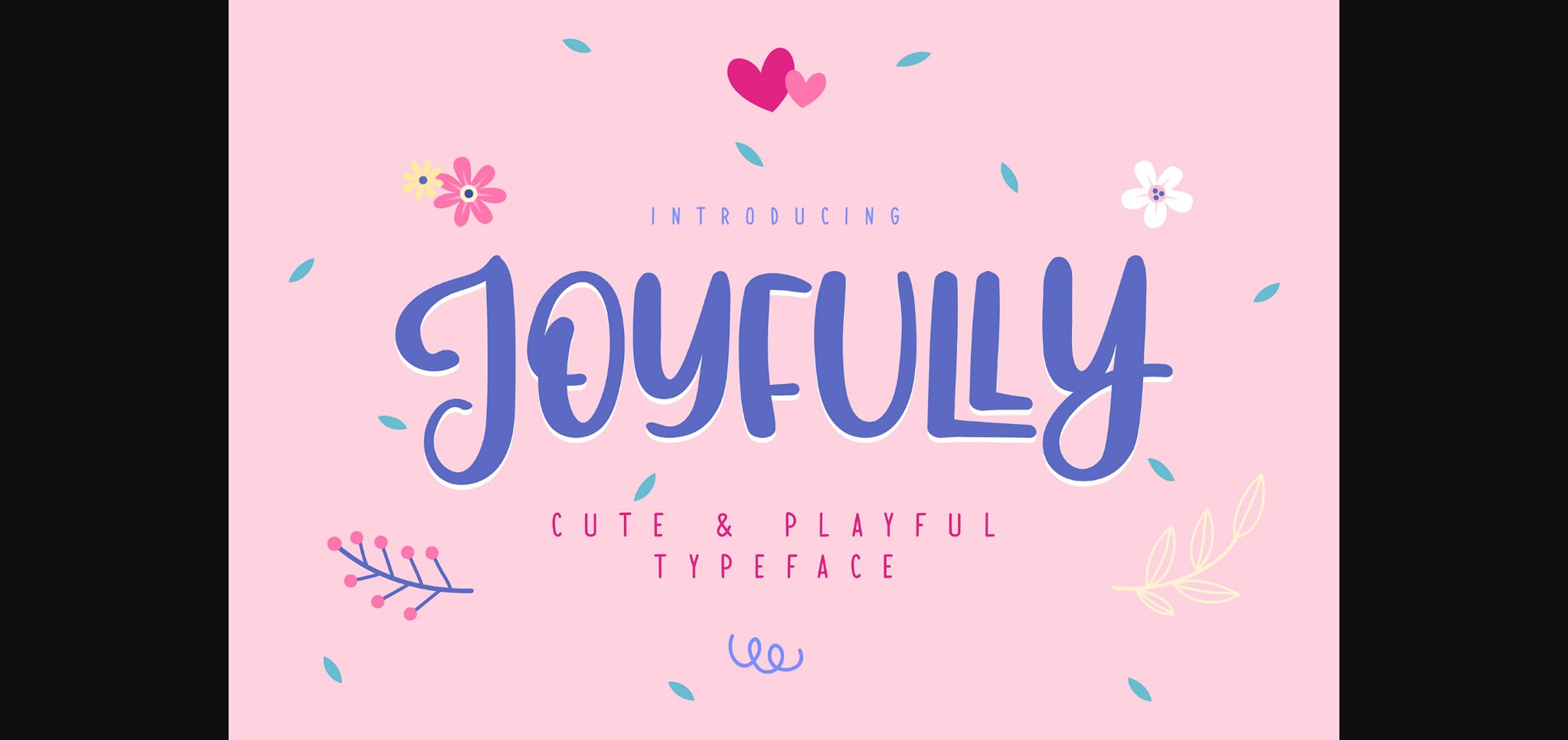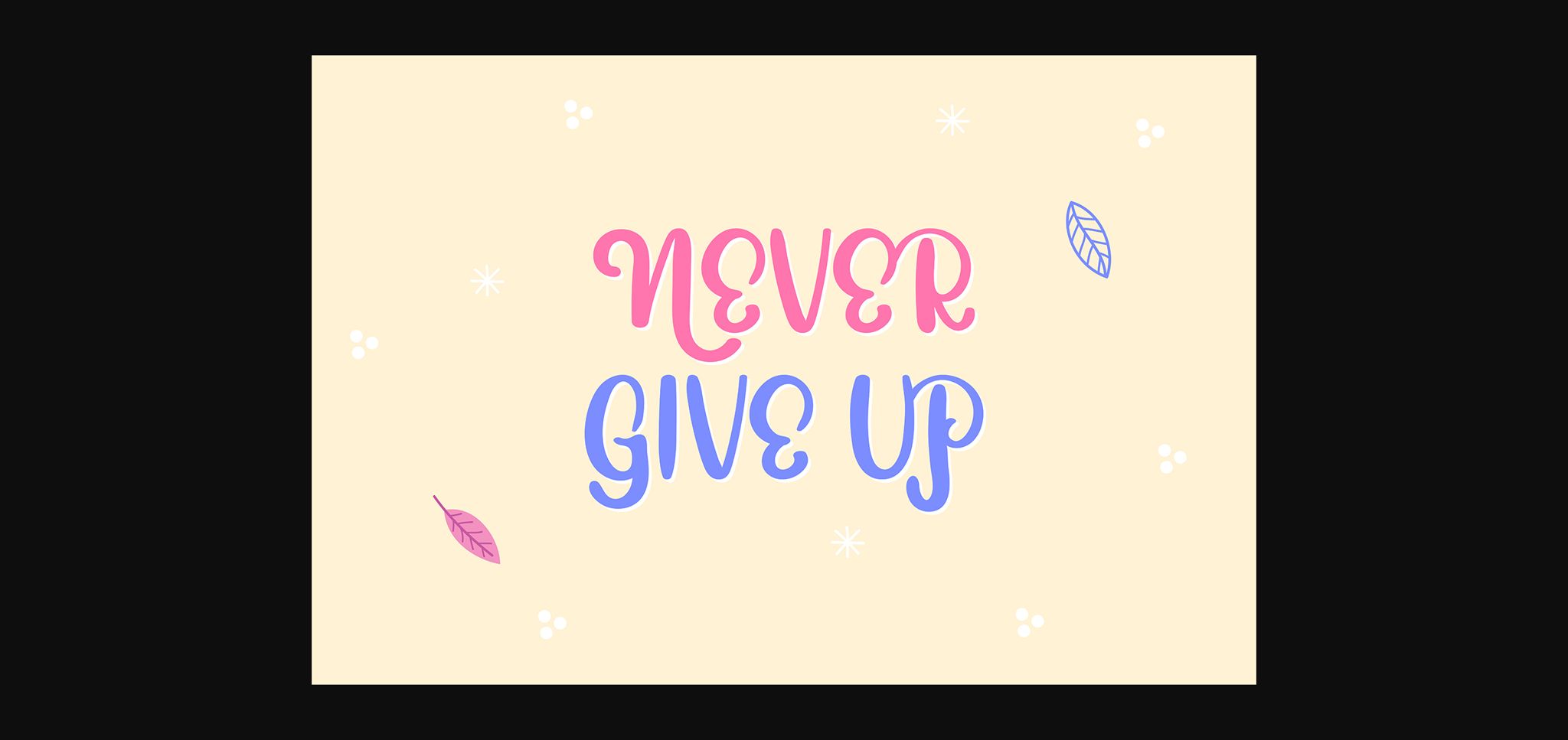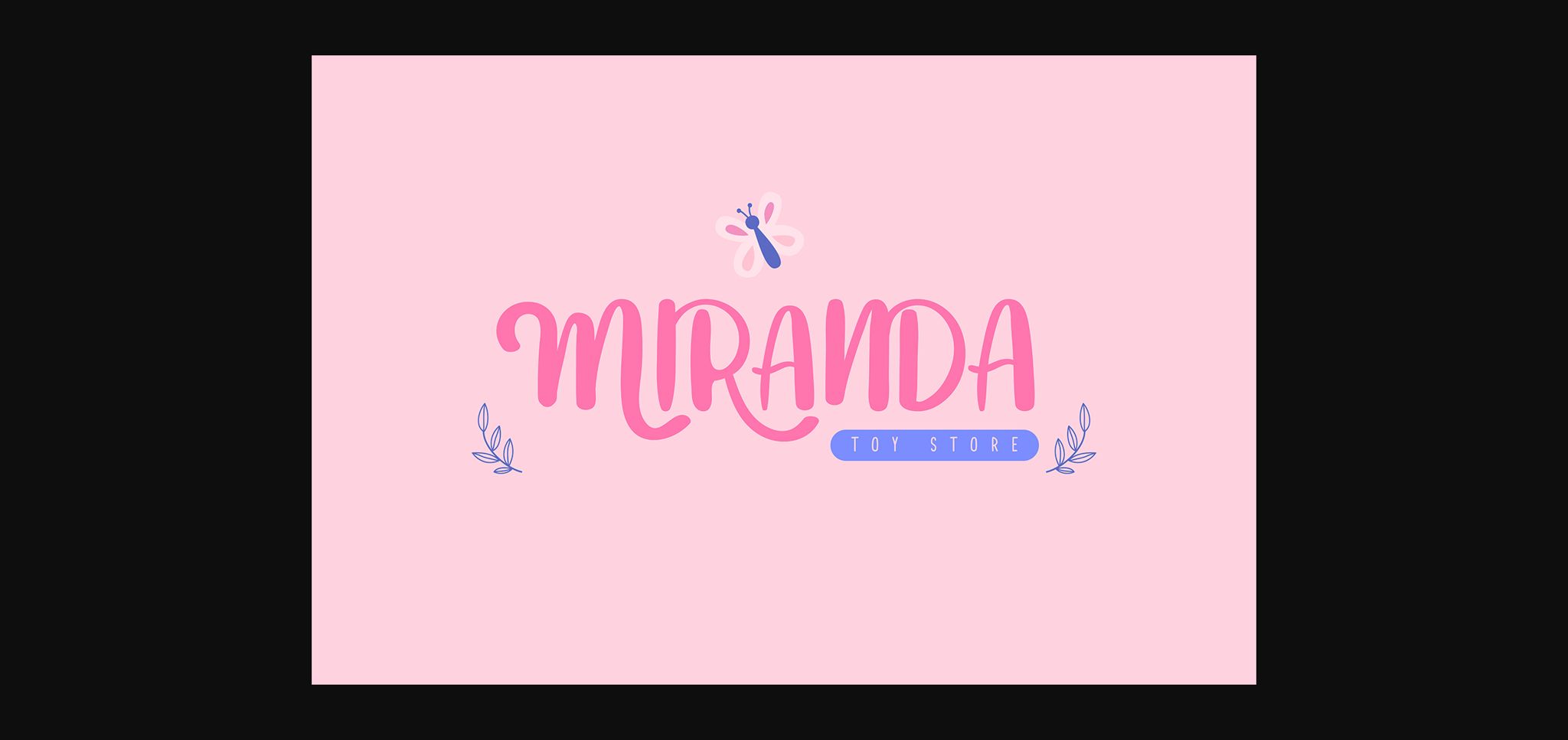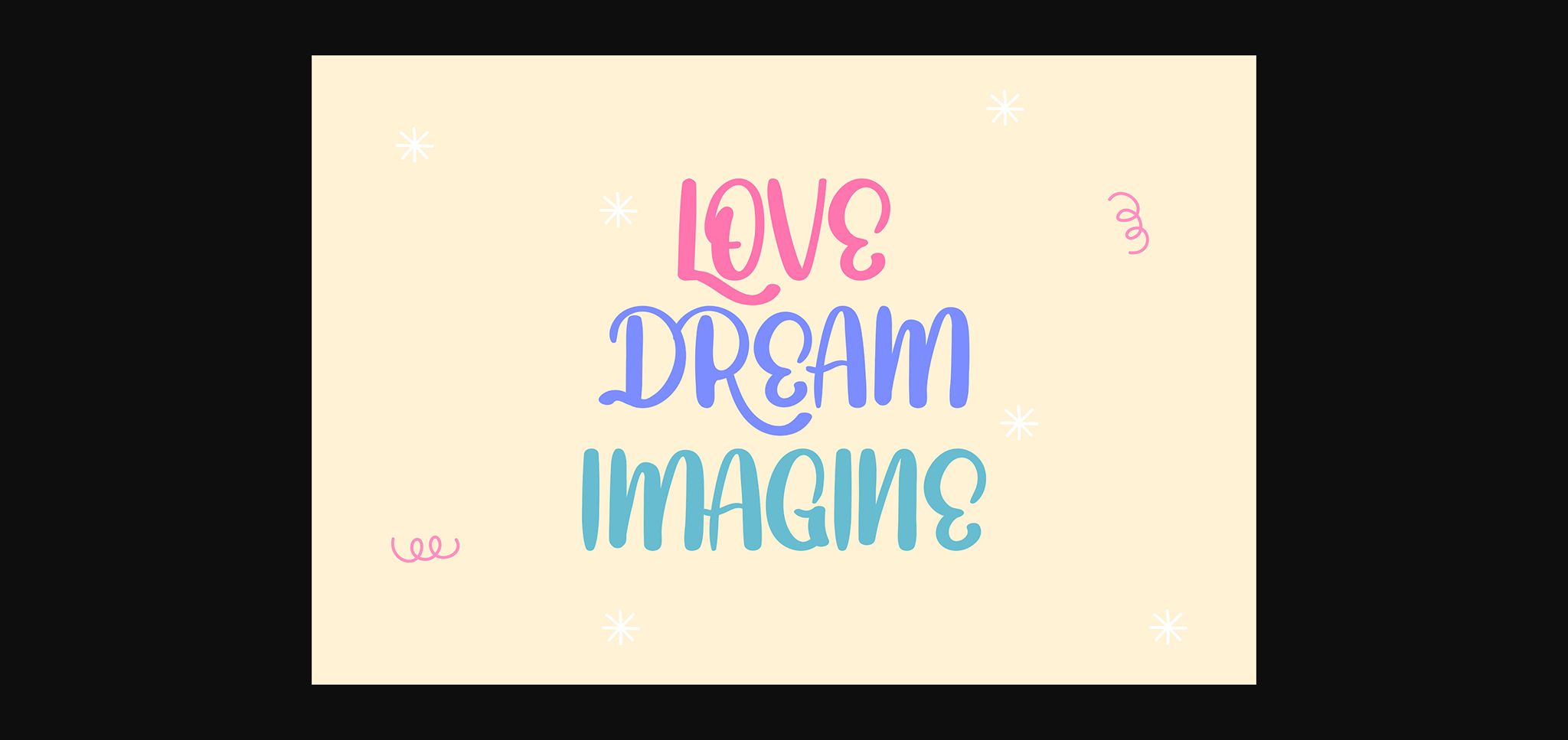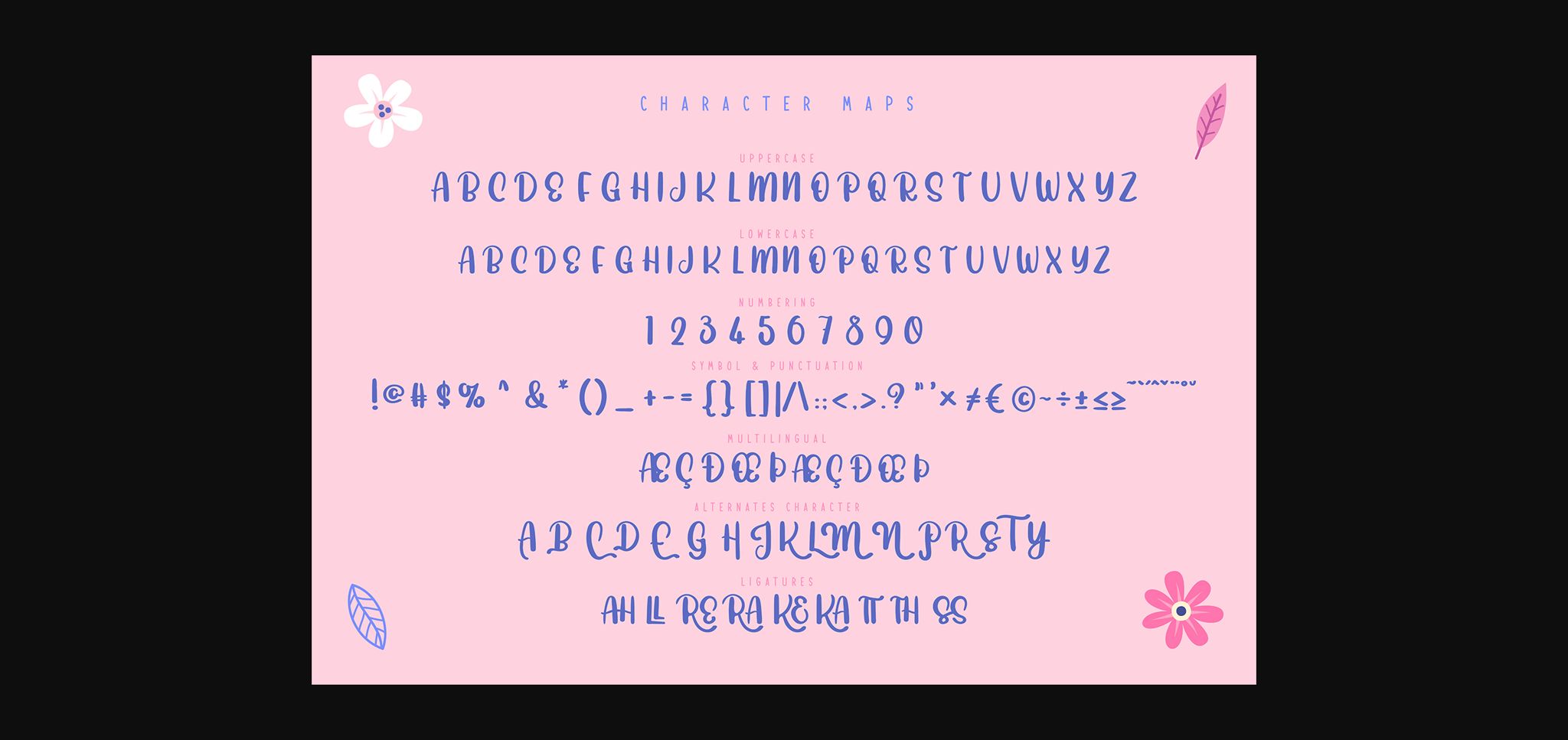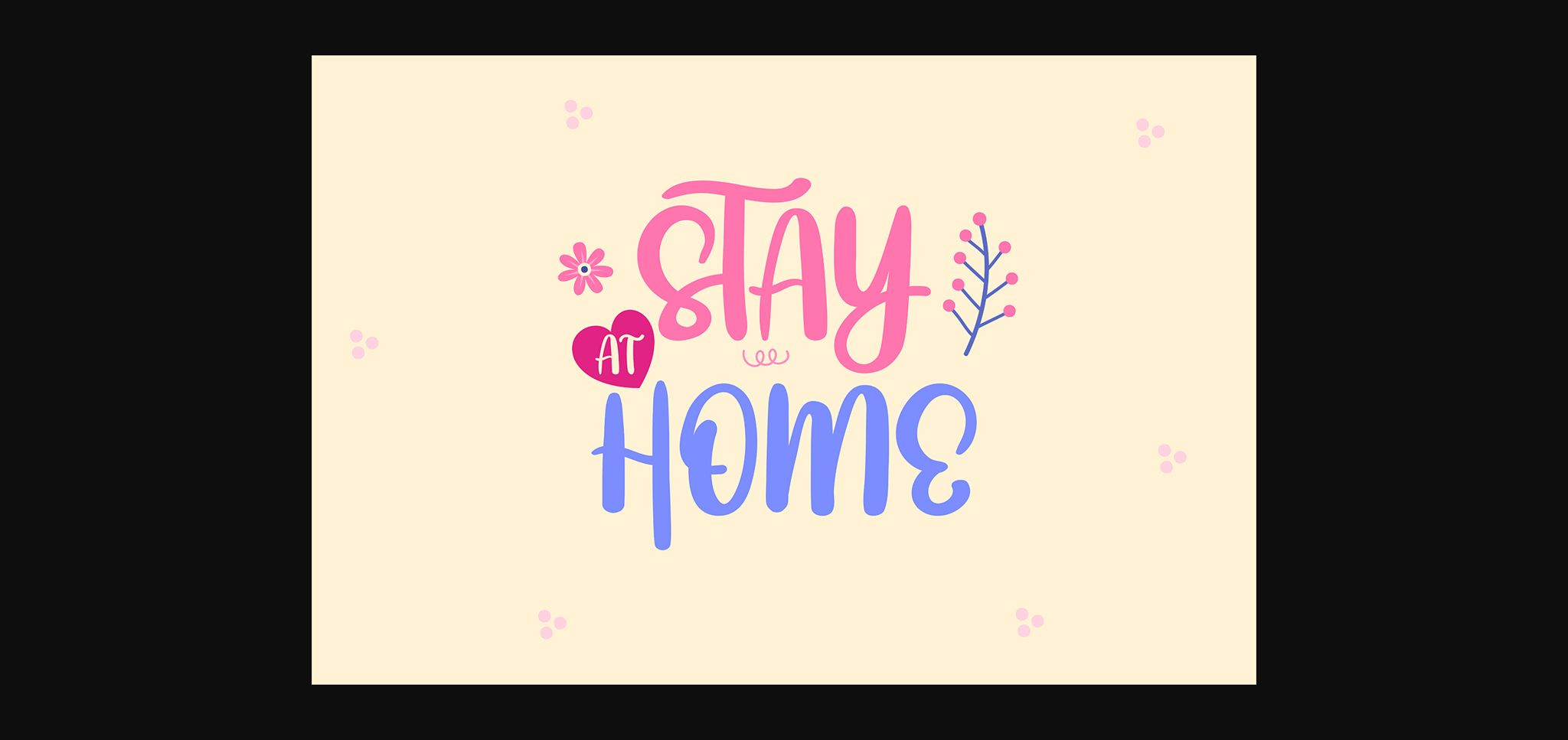
Joyfully Font
About Joyfully Font
Joyfully is a cute and casual sans serif font with an incredibly friendly feel. Whether you’re looking for fonts for Instagram or calligraphy scripts for DIY projects, this font will turn any creative idea into a true piece of art!